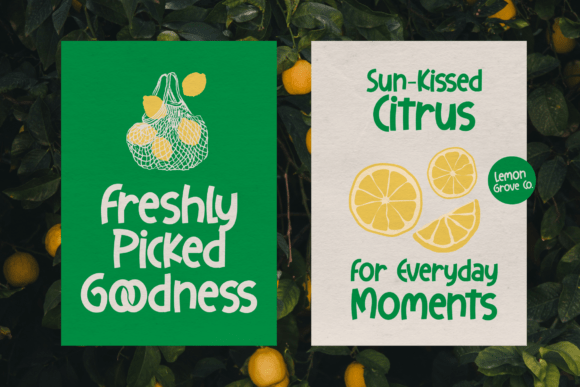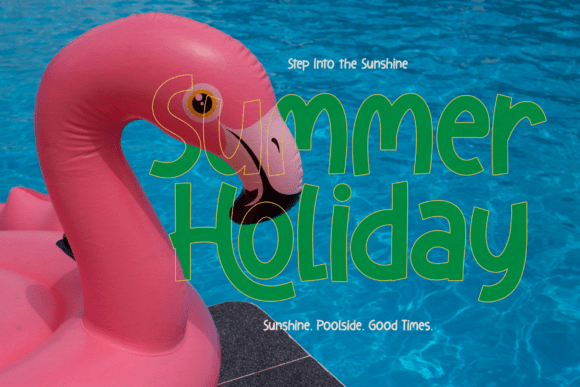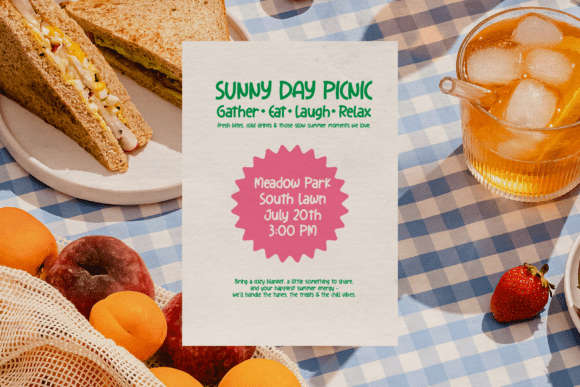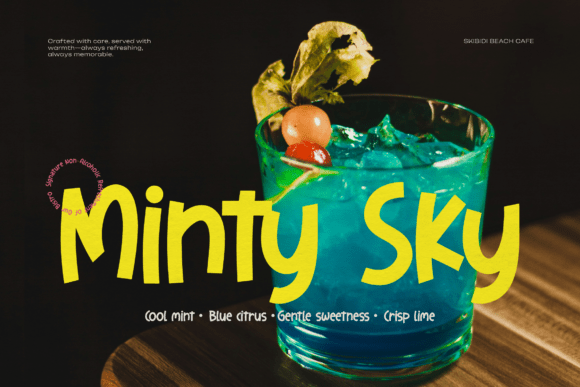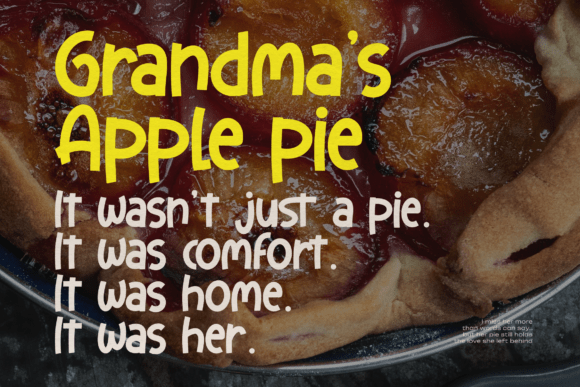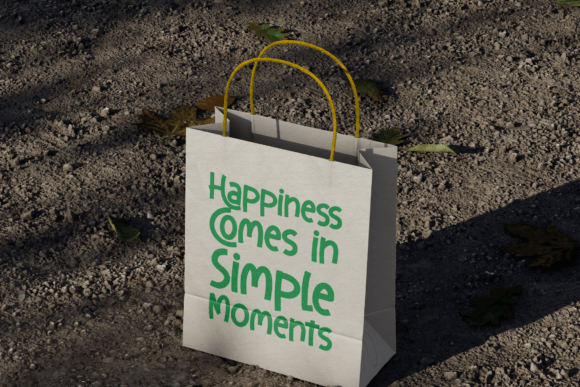
Introduction to Comfy Quacky Font Font
Fonts play a crucial role in design, and the Comfy Quacky Font font is a typeface that brings both character and versatility to any project. Whether you’re working on a branding project, a website, or a print design, the Comfy Quacky Font font offers a unique style that can elevate your work.
π¦ Comfy Quacky Dive into the playful, nostalgic world of the Comfy Quacky font, a hand-drawn display typeface with an unmistakable retro vibe and a wonderfully rounded, bold presence.
Featuring over 270 unique glyphs, this delightful Comfy Quacky typeface is packed with character, perfect for attention-grabbing designs that need a dose of cheerful personality Its thick, bubble-style letters and friendly curves are instantly readable, making it ideal for childrenβs books, quirky packaging, vibrant posters, and fun summer-themed branding.
Key Features of Comfy Quacky Font Font
Why Choose Comfy Quacky Font Font?
The Comfy Quacky Font font is more than just a typeface β it’s a design tool that helps you communicate your message with style and clarity. Its unique character set and versatile design make it suitable for a wide range of applications, from elegant invitations to bold headlines.
With its carefully crafted letterforms and balanced proportions, the Comfy Quacky Font font ensures readability and visual appeal across all mediums.
What makes Comfy Quacky Font font special?
The Comfy Quacky Font font stands out with its unique design, exceptional readability, and versatility across various design applications.